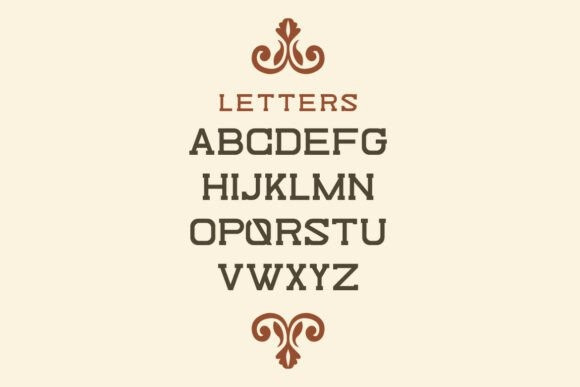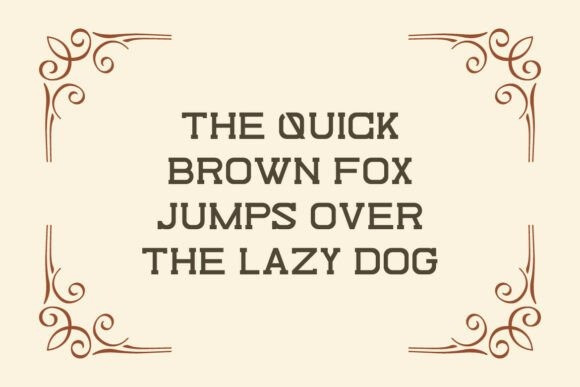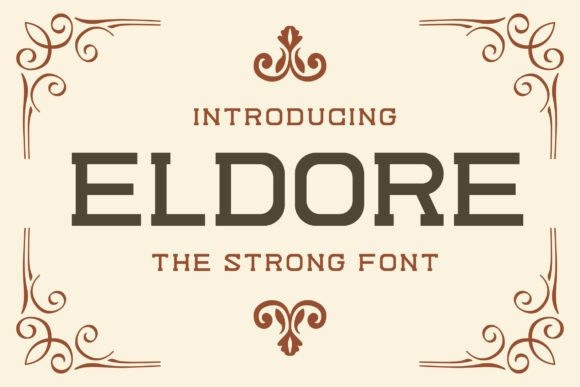
Eldore Font
Eldore is a Slab Serif font, perfect for branding, packaging, mobile apps, social media, children’s products and tech interfaces that need to feel both professional and approachable.